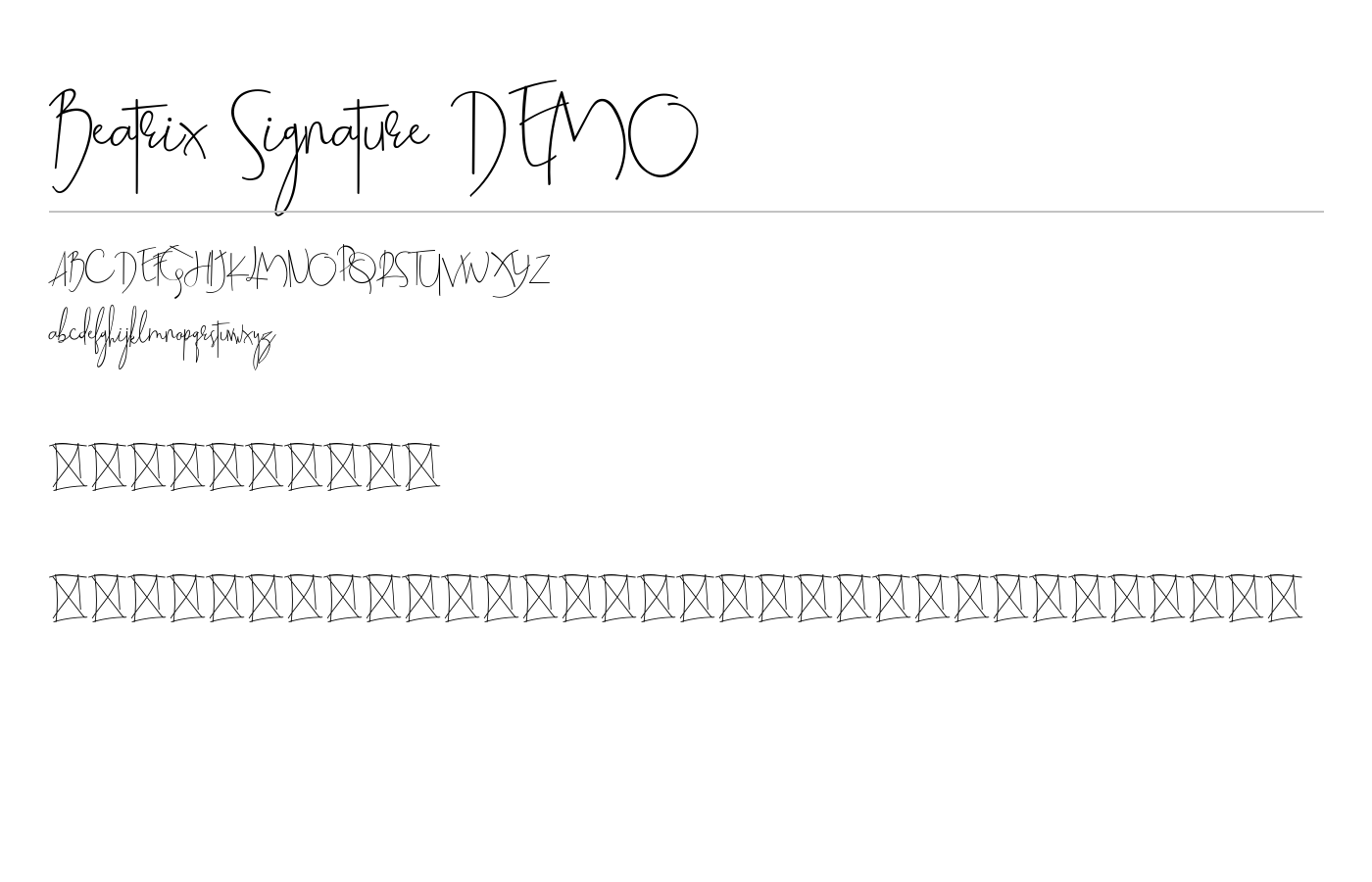
Beatrix Signature Font is a delicate, handwritten script with a tall, narrow structure and a light, airy feel. Its thin, flowing lines and casual, slightly whimsical letterforms evoke a personal, elegant touch perfect for creative branding, invitations, and fashion-related designs. This font works well where a refined yet approachable handwritten style is desired, adding charm and personality to headlines and logos.
Beatrix Signature Font
About Beatrix Signature Font